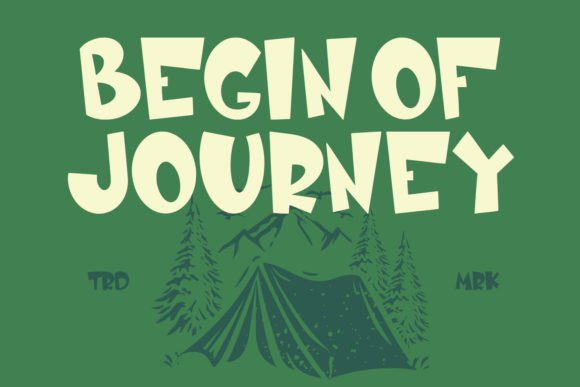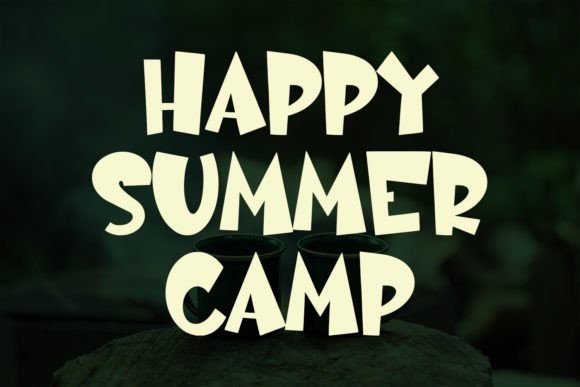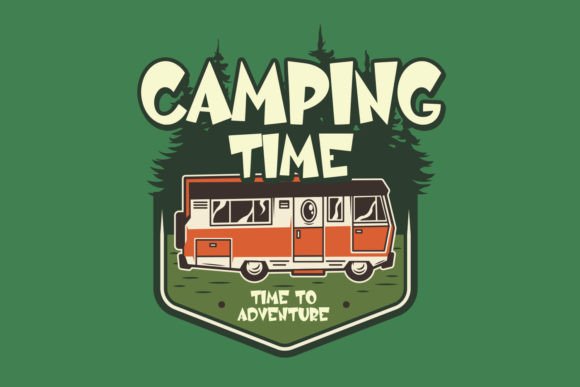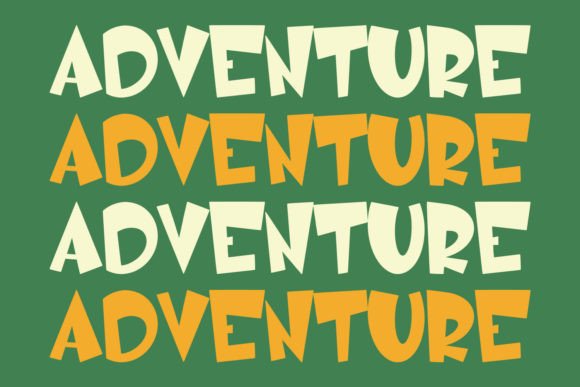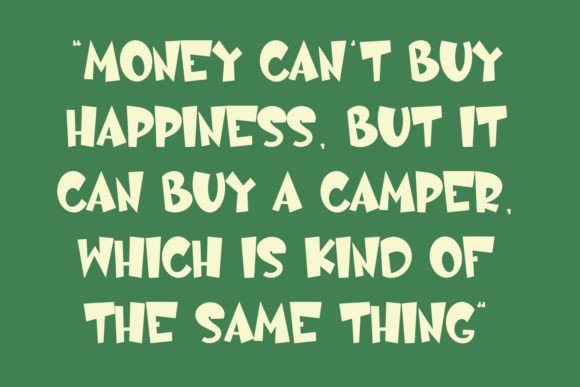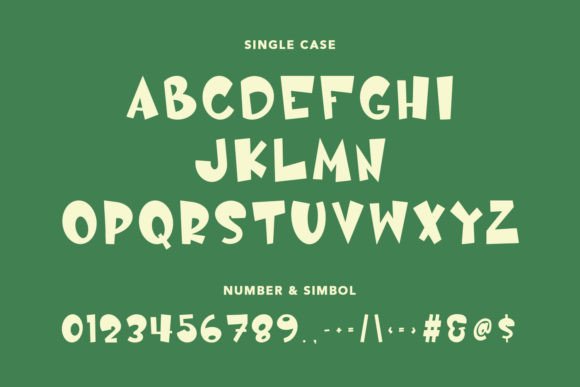
Introduction to Smort Emiga Font
We’ve all been there – staring at a blank canvas, searching for the perfect font to bring our creative project to life. It’s that moment when the design starts to feel stagnant, and we know we need a little something extra to make it pop. For designers, finding the right font can be the difference between a mediocre design and a truly memorable one. And that’s where Smort Emiga Font comes in – a fun, cartoonish display font that’s sure to add a playful touch to any design.
With its cheerful personality, Smort Emiga Font is a valuable addition to any designer’s toolkit. Whether you’re working on a high-quality design resource or just a fun side project, this font is sure to bring a smile to your face and a new level of creativity to your work.
Key Features of Smort Emiga Font
- High-quality design resource ideal for creative projects, including graphics, logos, and typography.
- Includes a range of characters, including uppercase and lowercase letters, numbers, and special symbols.
- Designed with a modern aesthetic, making it suitable for a variety of design projects, from corporate to creative.
Honest Review: Smort Emiga Font
As a designer, I’m always on the lookout for high-quality design resources to elevate my creative projects. Recently, I stumbled upon the Smort Emiga Font, and I’m excited to share my honest review with you.
- ✨ The font is incredibly versatile and can be used for a wide range of projects, from logos to typography-heavy designs.
- ✨ The transparent background makes it easy to use as a overlay or texture in creative projects.
- ⚠️ The font may not be suitable for projects that require a lot of customization, as it can be a bit tricky to edit.
Overall, I’m impressed with the Smort Emiga Font. It’s a high-quality design resource that can add a lot of value to your creative projects. While it may have some limitations, it’s definitely worth checking out, especially if you’re looking for a free font with a transparent background.
The Smort Emiga Font is a high-quality design resource perfect for any creative project. With a transparent background, it’s easy to customize and integrate into your design.
For the best results, use the Smort Emiga Font in combination with a clear and concise design concept. Common use cases include:
- Advertising materials